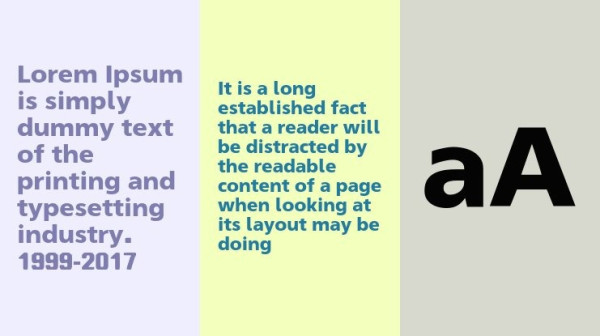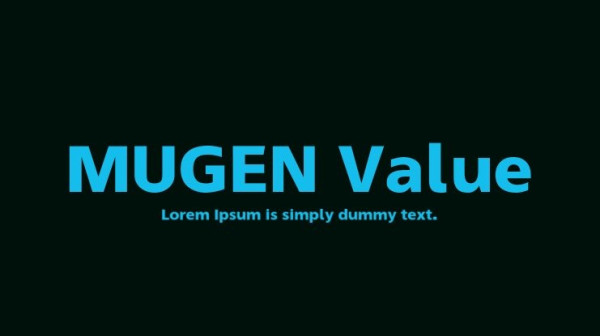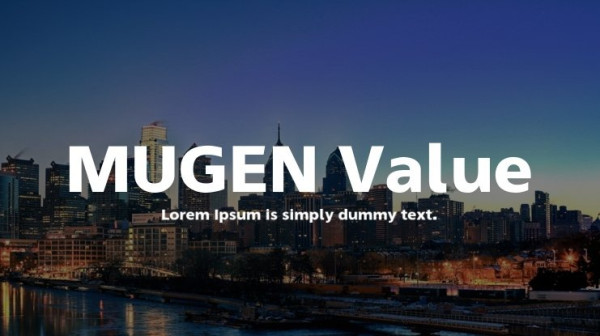
Mugen Value Font, is a sans serif stunning when combined or separately. This sans serif font style is legible and stunningly designed.
Mugen Value Font